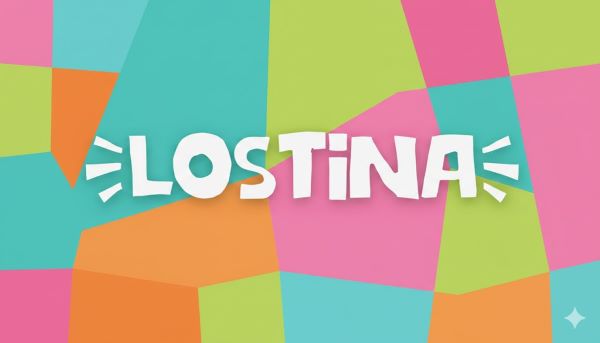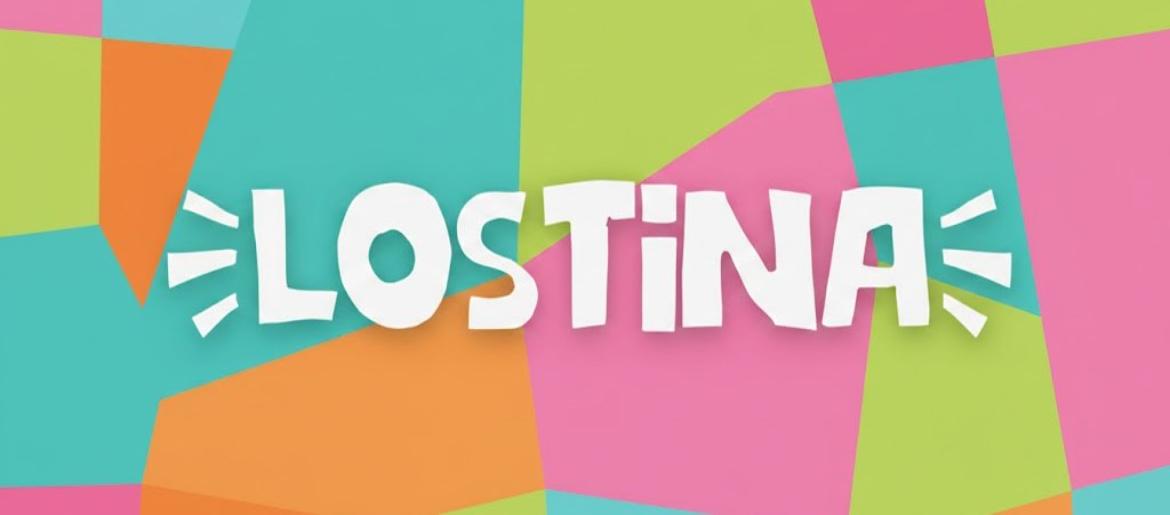
Lostina Font
Lostina is an energetic and eye-catching display font created by Linafis Studio. Its robust, bold letterforms are bursting with personality, making it an excellent choice for headlines, posters, and brand identities that need to stand out in a crowd. The font strikes a balance between playful handwritten character and confident display weight, giving each composition a lively, dynamic energy.